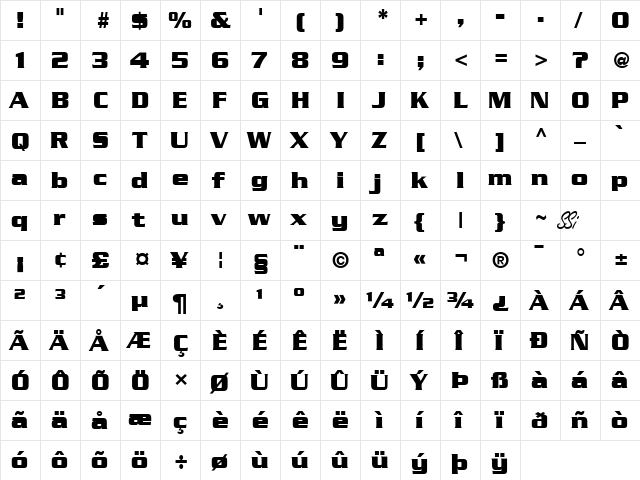
Boost SSi Bold Font Preview
Boost SSi Bold
Design Context for Boost SSi Typeface
Boost SSi takes a measured approach to typography — its balanced proportions and neutral character make it a reliable workhorse for both digital and print work. Its bold stroke weight gives it real presence on the page.
Pro Tip: Pair Boost SSi with a font of contrasting weight or personality to build a more expressive typographic hierarchy.